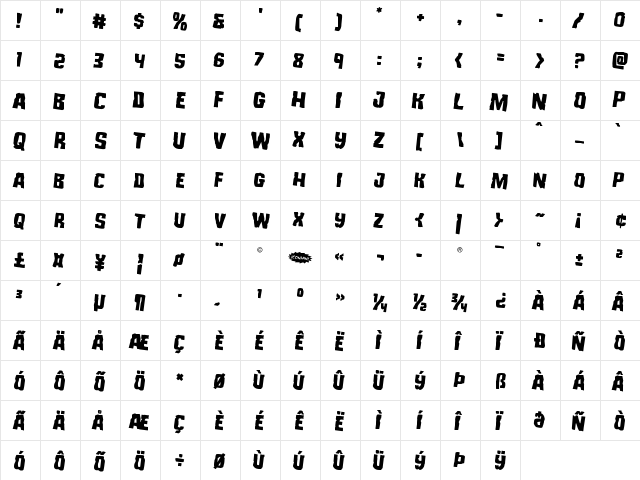
Monster Hunter Rotated 2 Regular
Design Context for Monster Hunter Rotated 2 Typeface
Monster Hunter Rotated 2 is a composed and adaptable typeface that performs quietly and consistently across a wide range of design contexts.